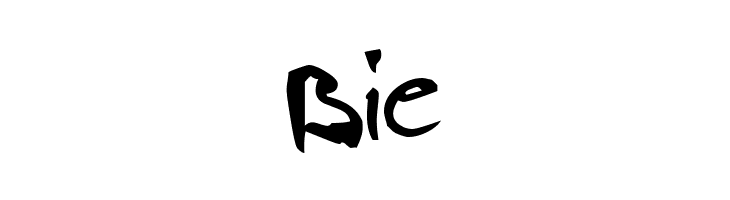
A bold, hand-drawn font with expressive strokes and a lively appearance.
A dynamic and expressive font with fluid, sweeping strokes and a handcrafted feel.
A dynamic, brush-like condensed font with expressive strokes and a modern calligraphic style.
A bold, italic, brush-style font with dynamic and expressive strokes.
A bold, brush-style font with expressive, textured strokes.